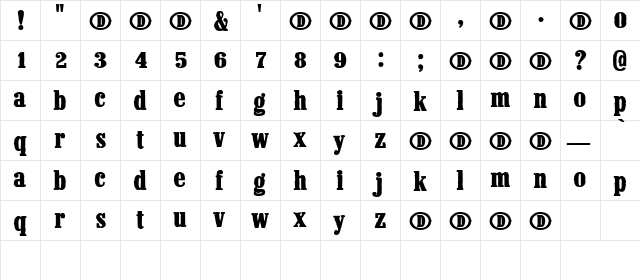
Rodeoboy Regular
Design Context for Rodeoboy Typeface
Rodeoboy takes a measured approach to typography — its balanced proportions and neutral character make it a reliable workhorse for both digital and print work.